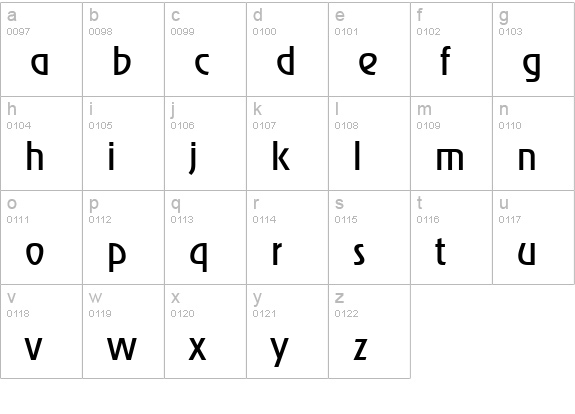
OnStageSerial-Regular Font Details
OnStageSerial-Regular is the standard, neutral variant in the OnStageSerial typeface family \xE2\x80\x94 well suited to general body text, paragraphs, and standard typographic work.
OnStageSerial-Regular font is a versatile and elegant typeface that brings a touch of sophistication to any design project. Its clean lines and classic design make it perfect for a wide range of applications, from branding and advertising to editorial and web design. With a timeless appeal and a modern twist, OnStageSerial-Regular font is sure to make your text stand out. Best of all, OnStageSerial-Regular font is available for free download at FontsMarket.com. This means you can easily access this high-quality font without any cost, making it a valuable addition to your font collection. Don't miss out on this opportunity to enhance your projects with the beauty and style of OnStageSerial-Regular font. Download it today and see the difference it can make in your work.